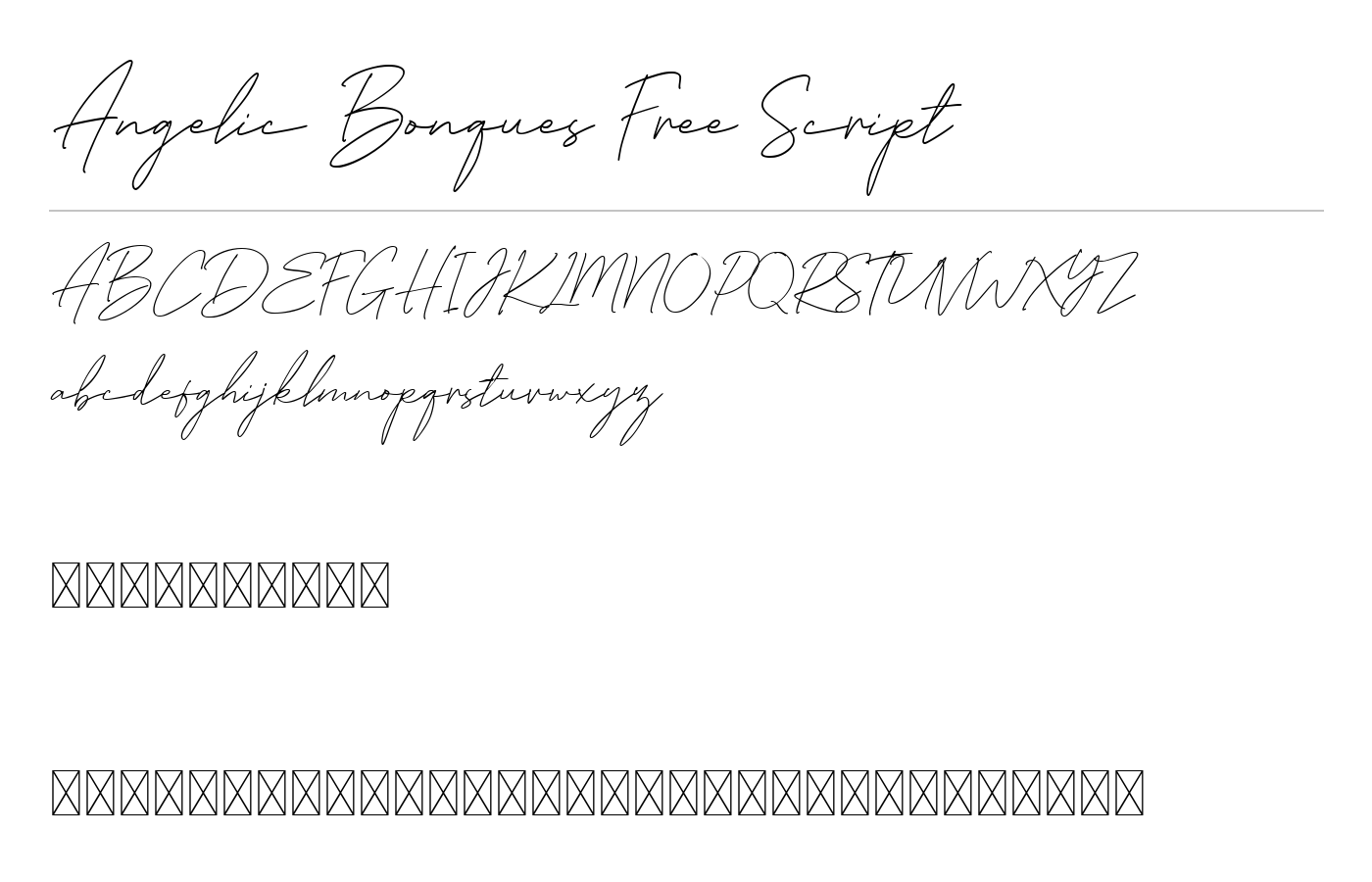
Angelic Bonques Free Font is a delicate, elegant script typeface with a handwritten, airy feel. Its thin, flowing lines and natural letterforms give it a graceful and refined personality, making it ideal for invitations, branding, and beauty or fashion-related designs where a personal, stylish touch is desired. This font works best for headlines and logos that call for a sophisticated yet approachable look.
Angelic Bonques Free Font